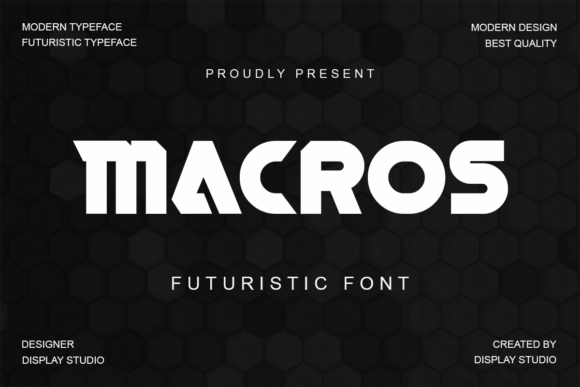
Prepare to be mesmerized by Macros Font, a breathtaking display font that will captivate your audience with its bold and striking presence. Experience the thrill of creating designs that command attention, effortlessly elevate your projects, and leave an unforgettable mark.
Macros Font's bold, thick letters exude an air of confidence and authority, making it the perfect choice for headlines, logos, posters, and any project that demands attention. Its clean lines and modern aesthetic will add a touch of sophistication to your designs, captivating your audience from the moment they lay eyes upon it.
Unleash your creativity with Macros Font and immerse yourself in a world of limitless possibilities. Whether you're a seasoned designer or just starting your journey, this font will become an indispensable tool in your arsenal, empowering you to create designs that resonate with your audience.
Indulge in the sheer brilliance of Macros Font today and witness the transformation of your designs. From ordinary to extraordinary, this font will elevate your work to new heights, leaving a lasting impression that will turn heads and capture hearts. Don't miss out on this opportunity to add a touch of magic to your creative endeavors. Download Macros Font now and embark on a journey of design excellence!